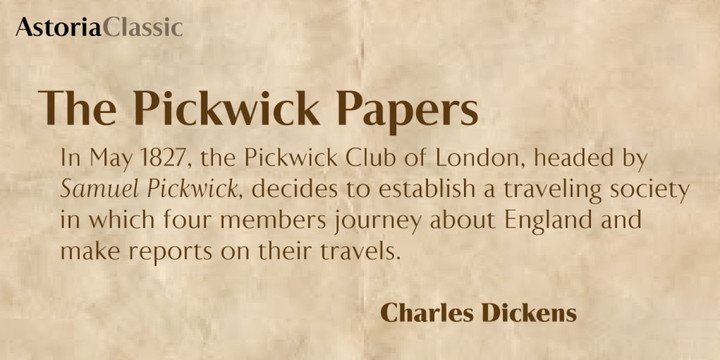
The Astoria Classic Family Font: A Designer’s New Best Friend
A First Impression: What Makes Astoria Classic Special
The Astoria Classic Family Font is the latest addition to the Astoria Range, offering a unique blend of classic and modern elements. It retains the same basic characteristics as Astoria but with a vertical stress that sets it apart. The subtle top left serif gives it a distinctive look that’s not quite a Roman and not quite a sans. This font is designed specifically as a text face but works beautifully as a headline font too.
• ✨ Versatility: Astoria Classic works well for both body text and headlines, making it a great all-around font.
• ✅ Elegant yet Modern: The vertical stress and subtle serif details give it a sophisticated look that’s perfect for a variety of design projects.
• 💡 Old Style Italics: The italics in Astoria Classic have an old-style form but with a modern look, adding a touch of uniqueness to any design.
While Astoria Classic is an excellent font, there are a few things to keep in mind:
• 🤔 Learning Curve: With its unique features like stylistic alternates and glyphs, there might be a slight learning curve for those new to using OpenType fonts.
The Astoria Classic Family Font was created with the intention of blending traditional typography elements with a modern twist. The designer aimed to produce a font that could serve as both a reliable text face and a stylish headline font. Inspired by classic serif fonts but infused with a contemporary feel, Astoria Classic is the result of meticulous craftsmanship and attention to detail.
Q: What makes Astoria Classic different from other serif fonts?
A: Astoria Classic stands out due to its vertical stress and the subtle top left serif, giving it a unique look that’s both classic and modern.
Q: Does Astoria Classic support OpenType features?
A: Yes, Astoria Classic supports OpenType features, including stylistic alternates and glyphs, which can be accessed in compatible software like Adobe Photoshop and Illustrator.
Q: Is Astoria Classic suitable for digital media?
A: Absolutely. While designed as a text face, Astoria Classic’s clear and elegant design makes it highly legible and suitable for digital media, including websites and mobile applications.